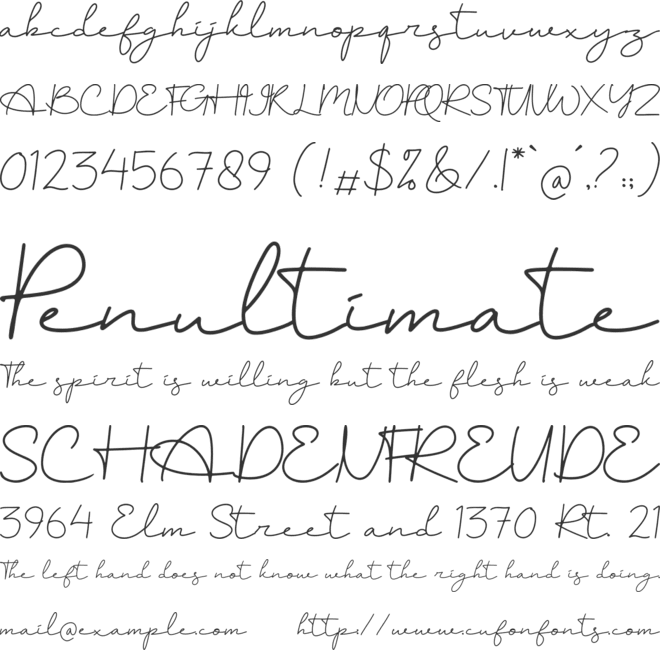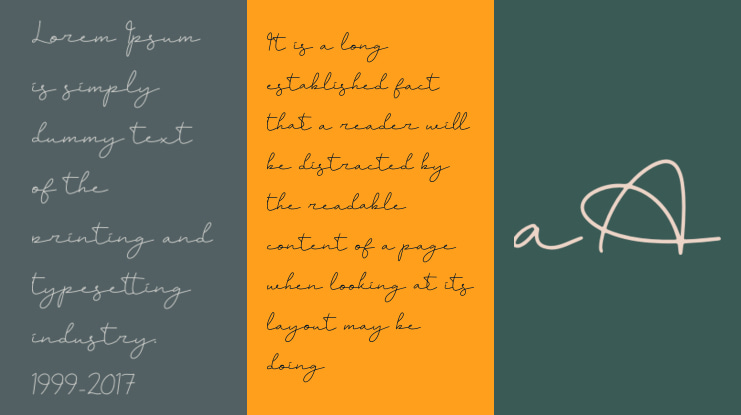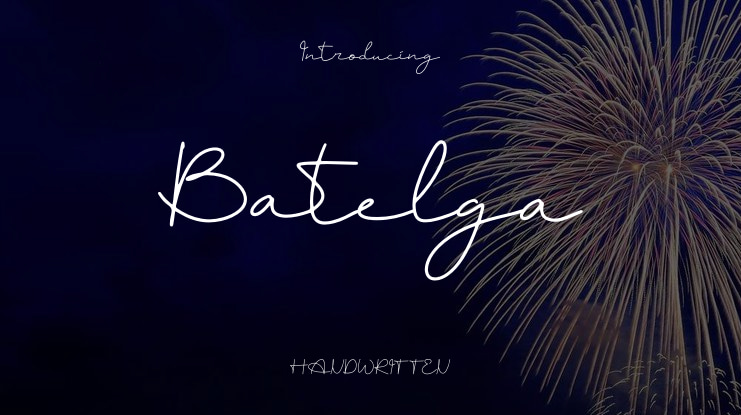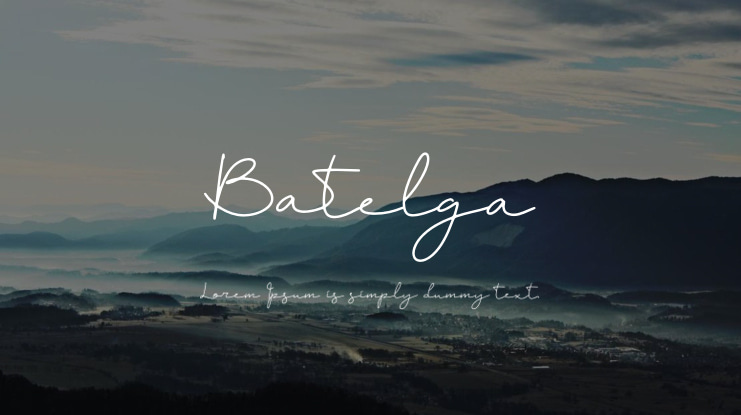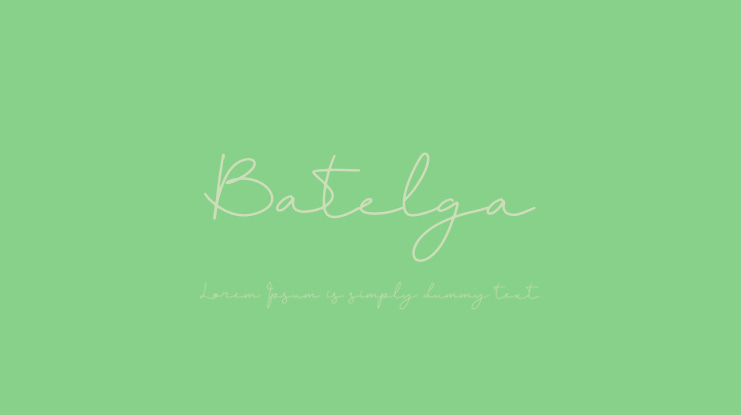
Batelga Font Family
Proudly present Bestia Gabrile Script Font, created by
Denustudios,
A Script and classic typeface that has own unique style &
lovely look.
This typeface is perfect for an elegant & luxury logo, book or movie
title design, fashion brand, magazine, clothes, lettering, quotes, and
so much more.
Ligature, Alternate & Swashes